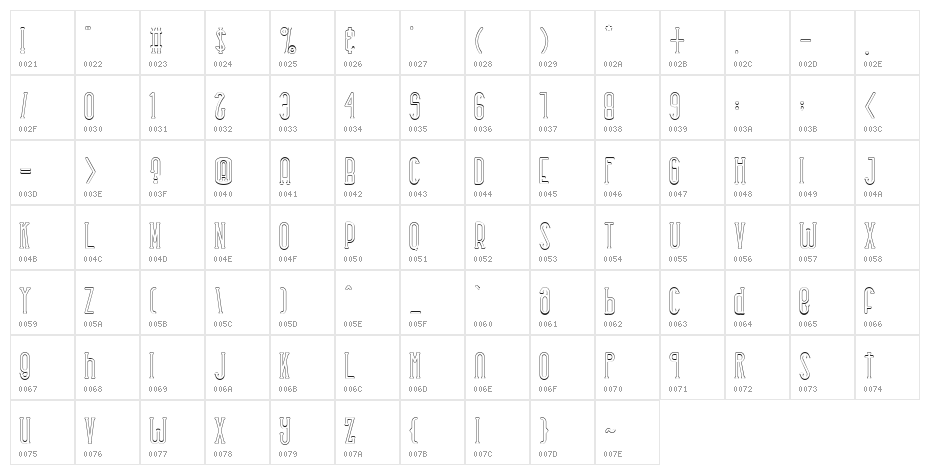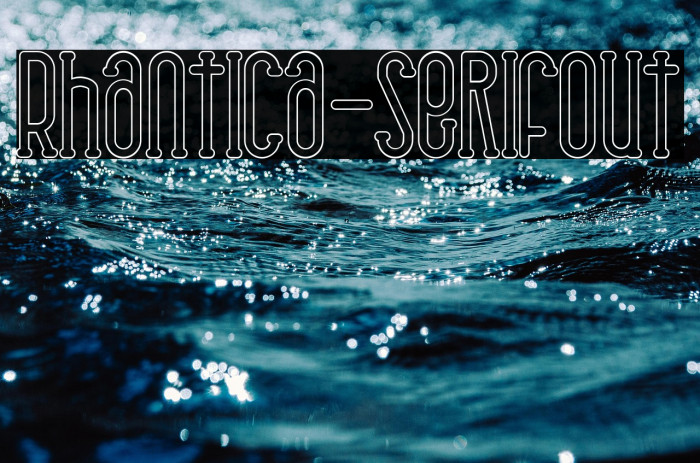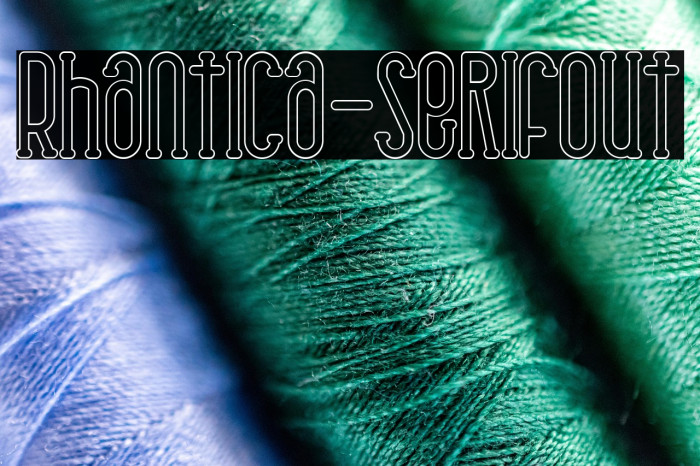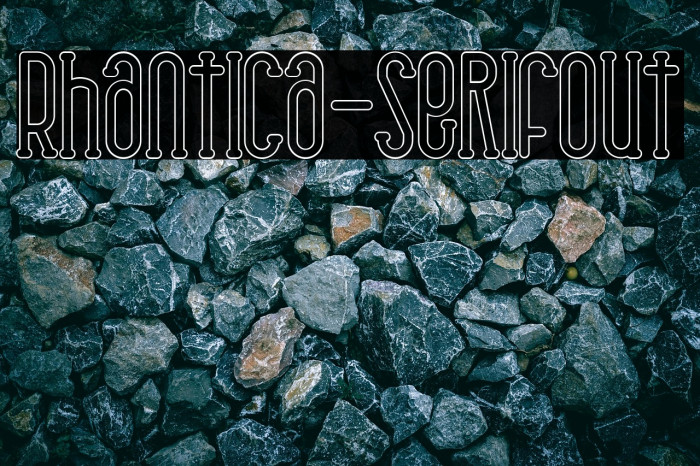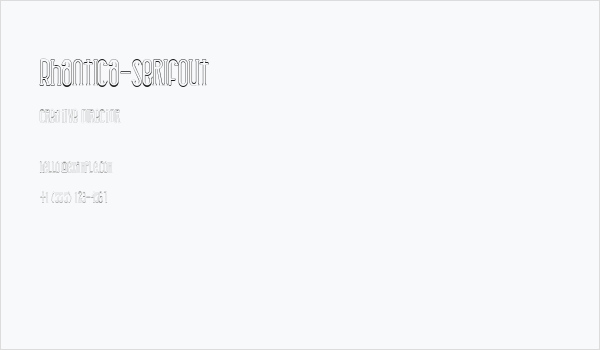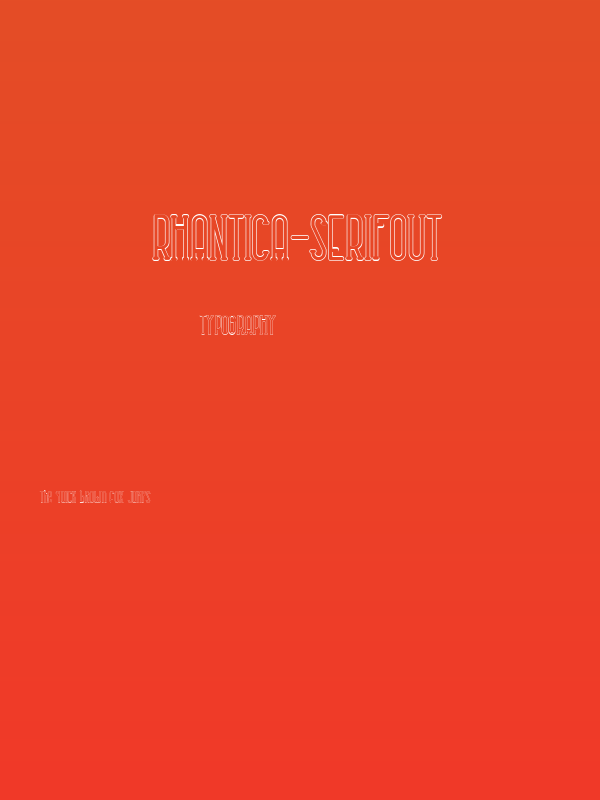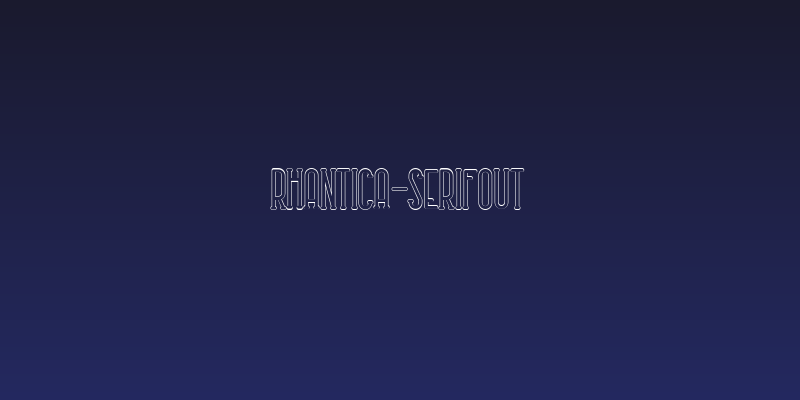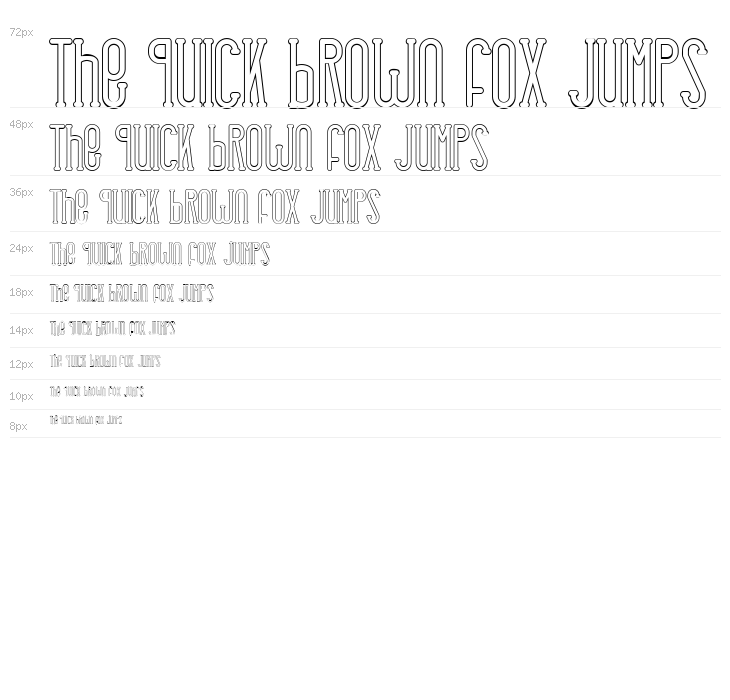
Rhantica-SerifOut Font
Rhantica-SerifOut Description
This font features a unique outline style with a modern twist, characterized by its hollow, tubular appearance. The uppercase and lowercase letters maintain a consistent height, creating a uniform look across the alphabet. The characters are elongated with rounded edges, giving them a sleek and contemporary feel. The numbers and special characters follow the same design principles, ensuring a cohesive aesthetic. This font's distinct style makes it stand out, offering a blend of modernity and creativity that can enhance various design projects.
| Proposed Projects | Ideal for branding, posters, and creative projects that require a modern and distinctive look. |